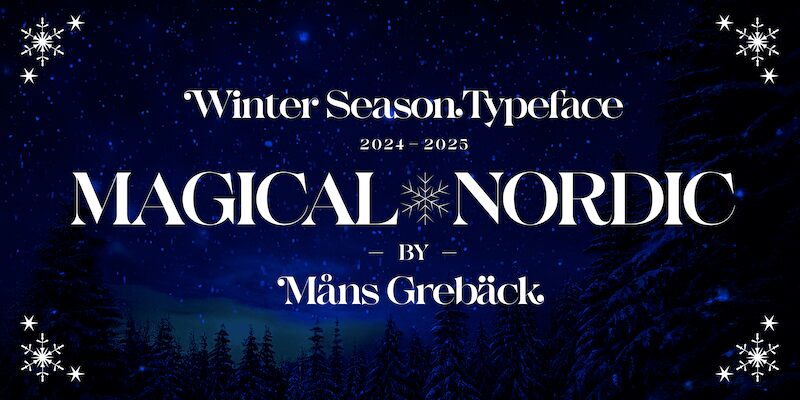
Magical Nordic Swash PERSONAL Regular
Magical Nordic is a beautiful modern serif font typeface created by Mans Greback and made available for personal use.
The design features a contemporary flair reflected through its elegant yet timeless look, and a modern feel thanks to its refined, simple style. It comes with a generous range of characters and numbers in both uppercase and lowercase as well as standard punctuation, which supports the many applications you can use it in.
This premium, refined typeface is suitable for book titles, headlines, UX and UI design, logo creation, invitation design, labels, stationery design, etc.
Use one or multiple asterisks * to create snowflakes and stars.
Example: XMAS*****GIFT